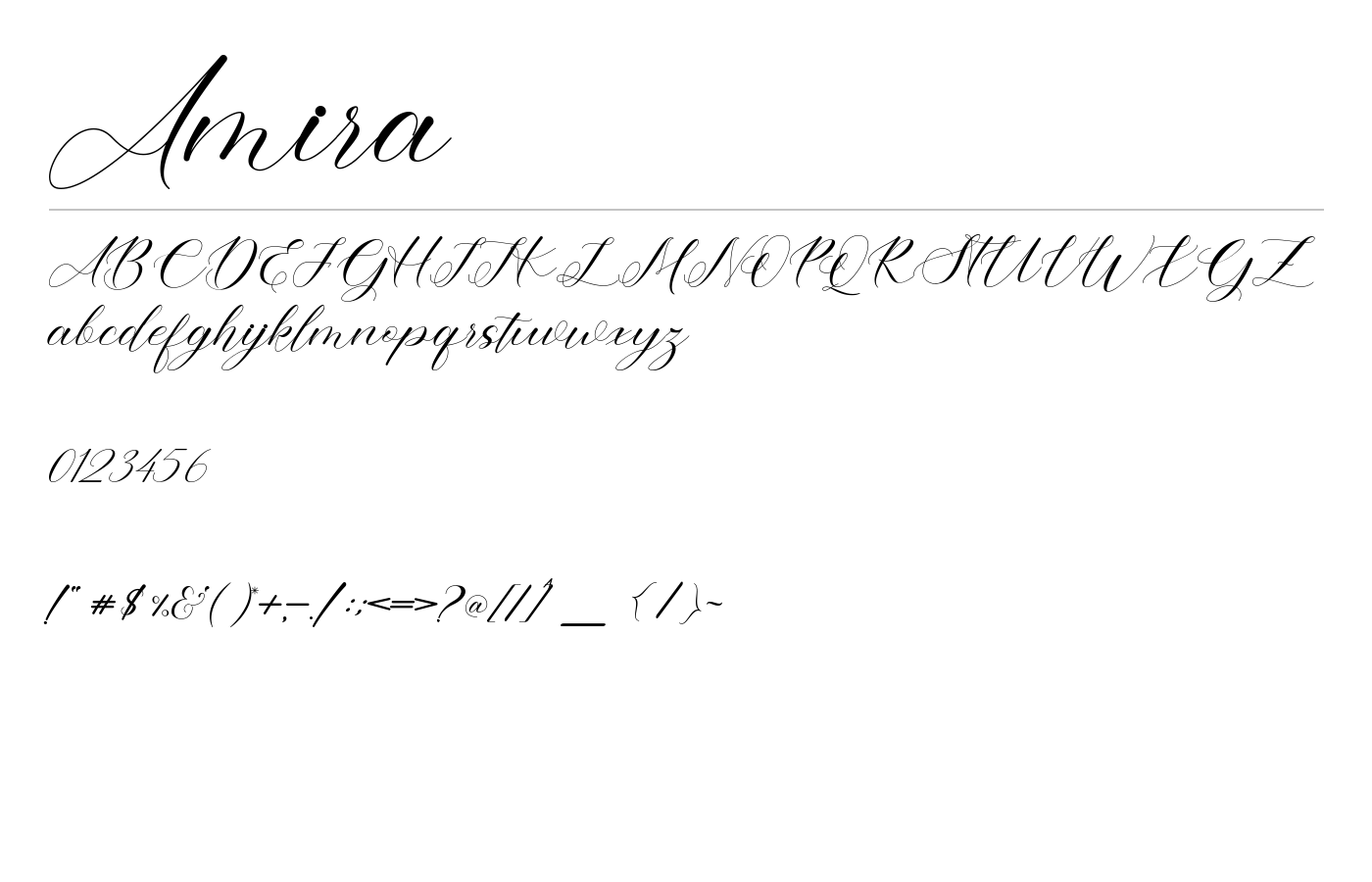
Amira is an elegant, delicate script font with fine, flowing strokes that create a graceful and sophisticated appearance. Its high contrast and calligraphic style make it perfect for luxury branding, wedding invitations, and formal editorial use where a refined, classic mood is desired. This font works beautifully for headlines and decorative text, adding a touch of timeless charm and elegance.
Amira Font
About Amira Font
| Font family | Amira Font |
| Designer | JunCreative (Muhamad Junaid) @mjart96 |